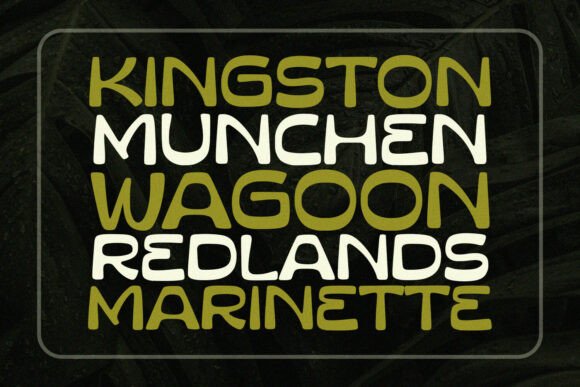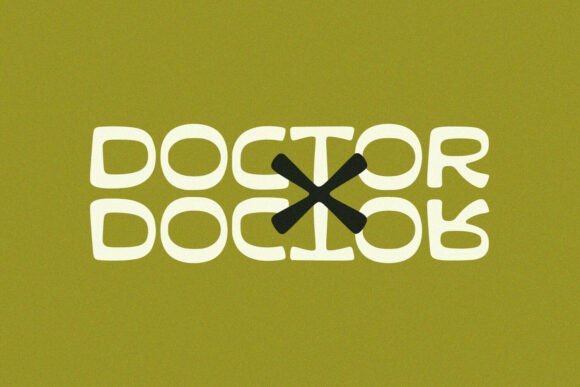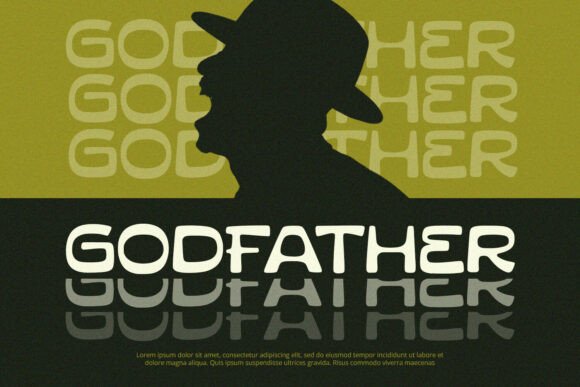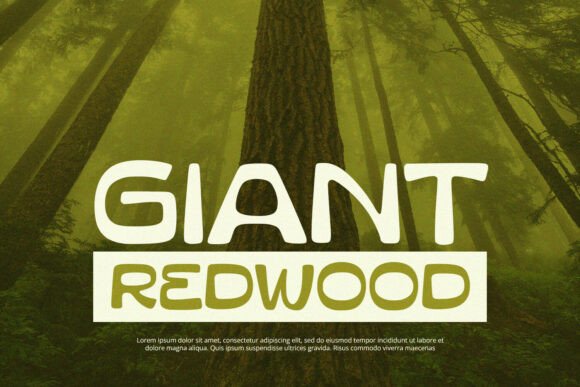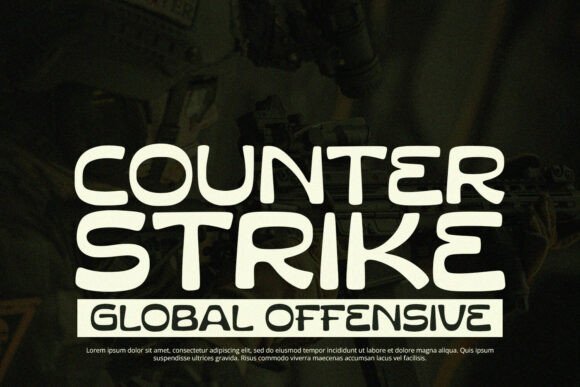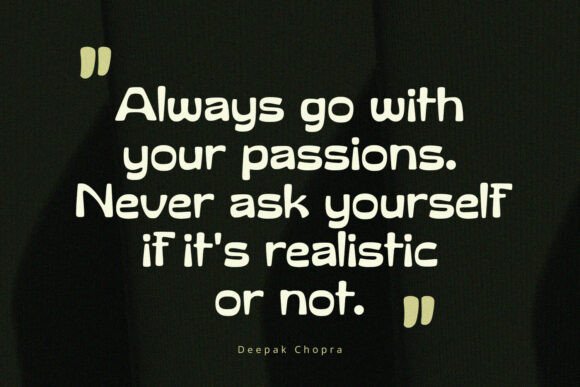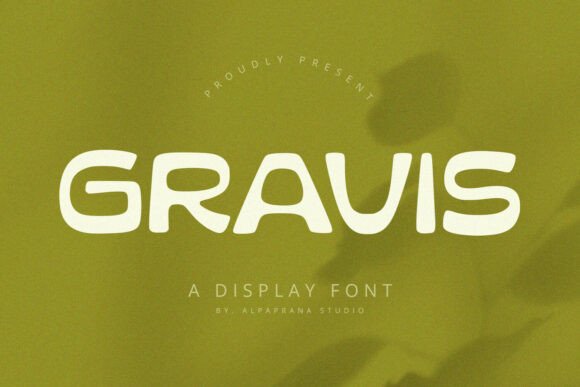
Introducing Gravis Font: The Modern and Playful Display Font for Creative Design Projects
In the world of design, fonts play a crucial role in conveying the tone and personality of a brand or project. If you’re a designer or crafter looking for a font that exudes modernity and playfulness, look no further than Gravis Font. This display font is perfect for a wide range of design projects, from branding and logo design to lettering, packaging, and more.
What is Gravis Font?
Gravis Font is a display font designed with a modern and playful feel in mind. Its unique and stylish letterforms make it an excellent choice for designers who want to add a touch of personality to their projects. Whether you’re working on a logo design, lettering project, or simply need a font for a poster or magazine, Gravis Font is sure to impress.
Key Features of Gravis Font
- Modern and Playful Feel: Gravis Font boasts a fresh and contemporary look that’s perfect for designers who want to create modern and eye-catching designs.
- Versatile: This display font can be used for a wide range of design projects, including branding, logo design, lettering, logotype, clothing, posters, magazines, packaging, and more.
- Unique Letterforms: Gravis Font features unique and stylish letterforms that will add a touch of personality to any design project.
Use Cases for Gravis Font
Gravis Font is perfect for a variety of design projects, including:
- Branding: Create a memorable brand identity with Gravis Font, perfect for logos, business cards, and letterheads.
- Logo Design: Design a unique and eye-catching logo with Gravis Font, perfect for businesses, products, or services.
- Lettering: Add a touch of personality to your lettering projects with Gravis Font, perfect for quotes, posters, and social media graphics.
- Logotype: Create a stunning logotype with Gravis Font, perfect for businesses, products, or services.
- Clothing: Design stylish and eye-catching clothing with Gravis Font, perfect for t-shirts, hoodies, and more.
- Posters and Magazines: Add a touch of modernity to your posters and magazines with Gravis Font, perfect for advertising, promotions, and editorial content.
- Packaging: Create eye-catching packaging with Gravis Font, perfect for products, food, and beverages.
- Shopping Bags: Design stylish and reusable shopping bags with Gravis Font, perfect for retail and e-commerce businesses.
- T-Shirts and Apparel: Create stylish and eye-catching t-shirts and apparel with Gravis Font, perfect for fashion brands and designers.
- Book Covers: Add a touch of modernity to your book covers with Gravis Font, perfect for fiction, non-fiction, and children’s books.
- Photography: Use Gravis Font to add a touch of personality to your photography projects, perfect for portfolios, exhibitions, and social media.
- Special Events: Create eye-catching event branding with Gravis Font, perfect for weddings, conferences, and festivals.
Why Choose Gravis Font?
There are many reasons why designers and crafters should choose Gravis Font for their design projects. Here are a few:
- Unique and Stylish: Gravis Font offers a unique and stylish look that’s sure to stand out in any design project.
- Versatile: This display font can be used for a wide range of design projects, making it a great addition to any design library.
- Easy to Read: Despite its playful feel, Gravis Font is easy to read and understand, making it perfect for body text and headlines.
In conclusion, Gravis Font is a modern and playful display font that’s perfect for designers and crafters looking to add a touch of personality to their design projects. With its unique and stylish letterforms, versatility, and ease of use, Gravis Font is sure to become a go-to font for any design project. Whether you’re working on branding, logo design, lettering, or packaging, Gravis Font is an excellent choice.